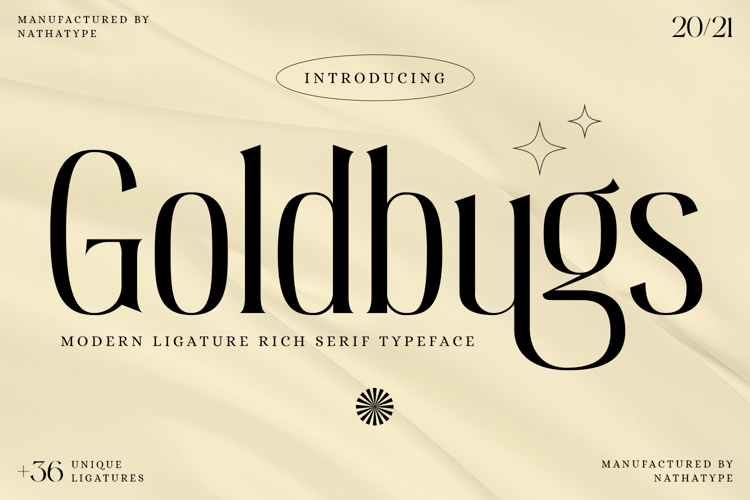
Goldbugs Font
Goldbugs is a remarkable serif font in an elegant, modern style for a formal, timeless typography. Each letter has a high quality and consistency for an excellent legibility to apply it for bigger- or smaller-sized texts. In addition, enjoy the features here.
Features:
• Ligatures
• Swashes
• Stylistic Sets
• Multilingual Supports
• Numerals and Punctuations =======================================================